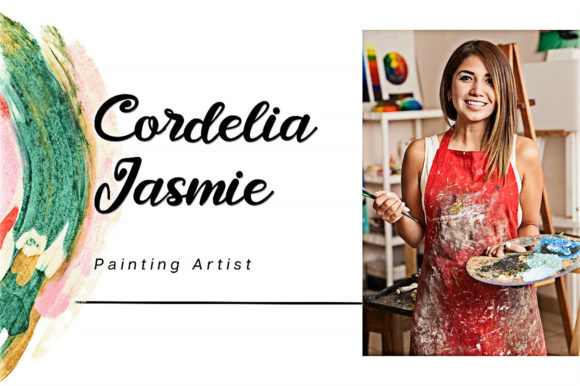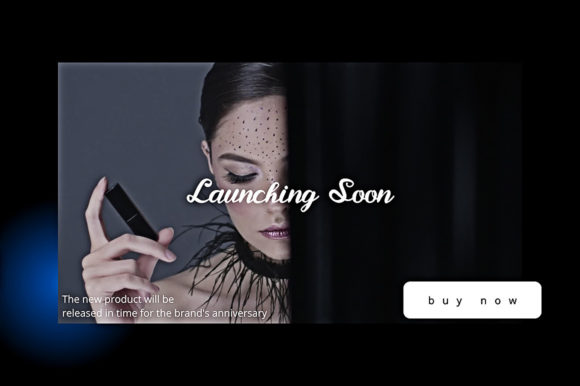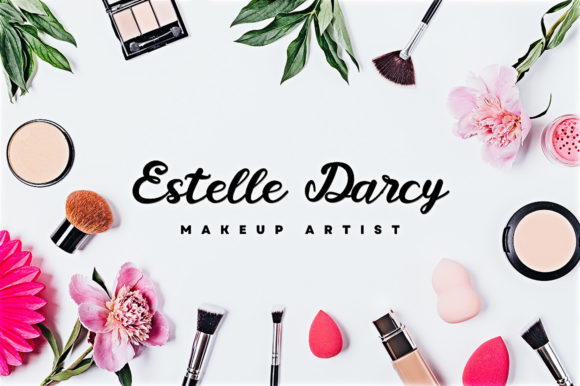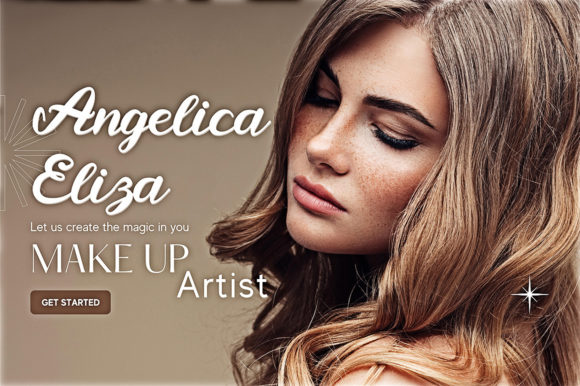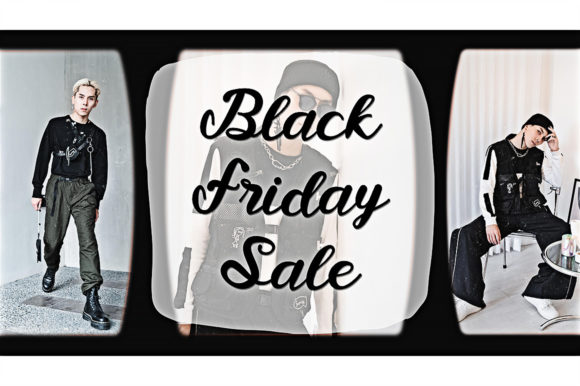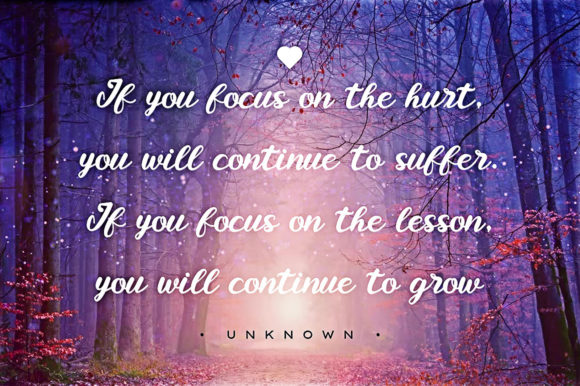
About Beatrice Font
Beatrice is an exquisite and refined script font that exudes a sense of chic elegance. With its graceful letterforms and delicate strokes, Beatrice is the perfect choice for a variety of branding projects, adding a touch of sophistication and style.
Whether you’re working on logos, t-shirt designs, sports-related graphics, or any other creative endeavor, Beatrice’s versatile nature ensures that it will shine in a wide range of contexts. Its timeless and classic appearance gives your designs a polished and professional look, making a lasting impression on your audience.
The font’s careful craftsmanship and attention to detail are evident in its smooth curves and balanced proportions. Beatrice’s flowing script creates a sense of fluidity and movement, adding a dynamic quality to your designs. This makes it an excellent choice for projects that require a combination of elegance and contemporary flair.
Beatrice’s adaptability is further enhanced by its clean and clear design, ensuring that your message is communicated with clarity and impact. Its versatility allows it to seamlessly integrate into various design styles, making it a reliable choice for both formal and casual projects.
With Beatrice’s inclusion in your creative toolkit, you can confidently tackle a range of branding projects and create captivating visuals that captivate and resonate with your target audience. Its chic and delicate nature will elevate your designs and contribute to a polished and sophisticated visual identity.